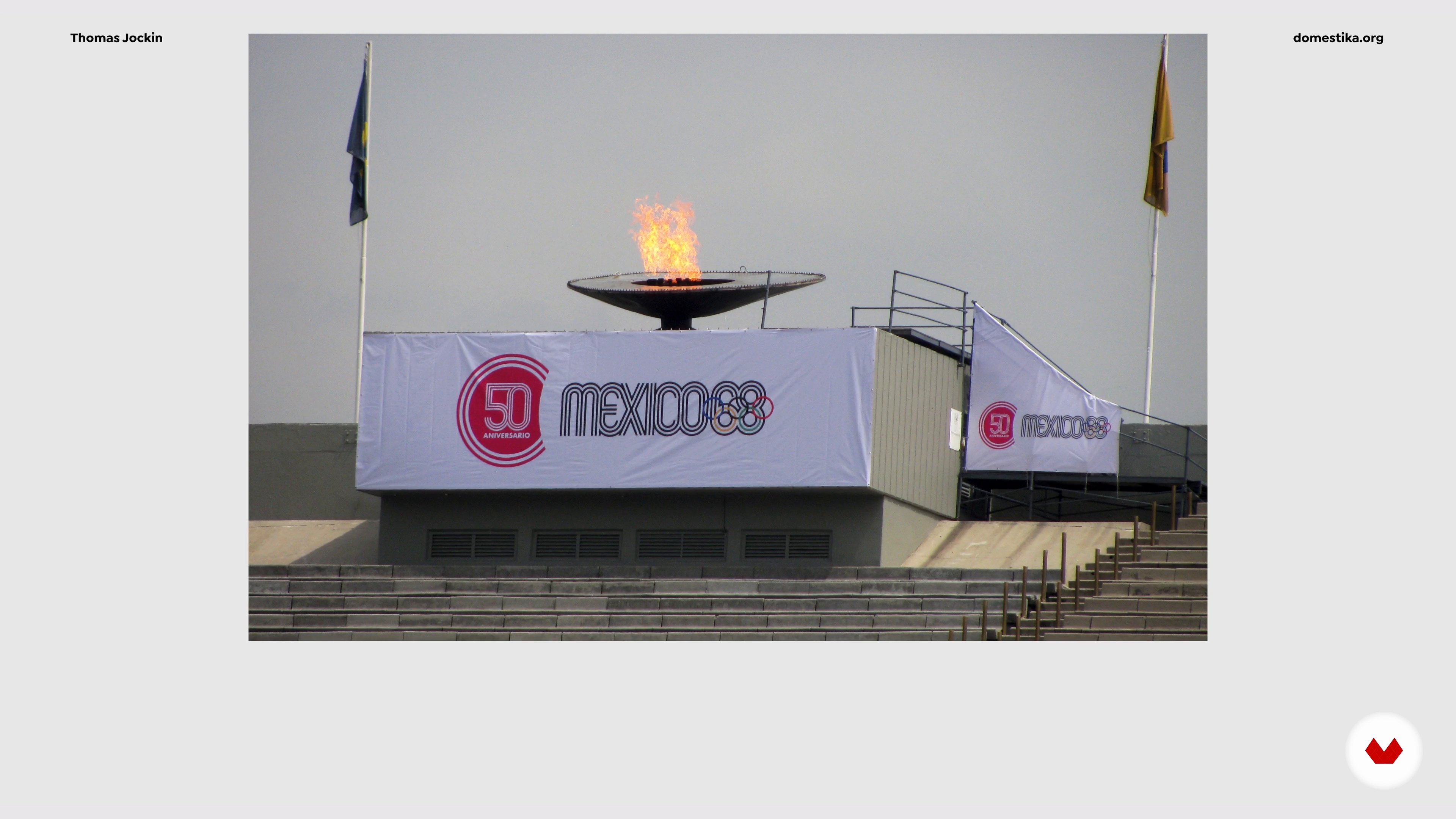
“Get excited because this is where we'll bring the last two lessons together. You will learn to incorporate your understanding of the three levels of fonts and the three levels of typefaces into your own font ideas.”
“Drafting Your Brief Now, we'll bring together everything we've learned from the last two lessons into your brief. We've explored three levels of a font, three levels of a typeface. We'll incorporate them together into your design brief. You should've completed the tasks in units two and three, so you'll have a plenty of visual resources and initial directions to think about as we proceed in this lesson. In this lesson, we'll merge your visual resources to the model of bones, muscles and clothing that we learned from unit two about fonts. A word of advice, simplicity is your friend. You'll h...”